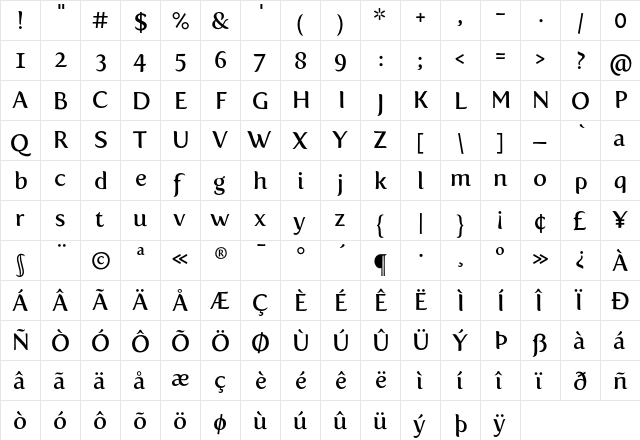
Fertigo Regular
| Foundry | Jos Buivenga |
| Designer | Jos Buivenga |
Design Context for Fertigo Typeface
Fertigo offers clean, dependable letterforms without strong stylistic allegiance, making it a practical choice for designers who need flexibility.